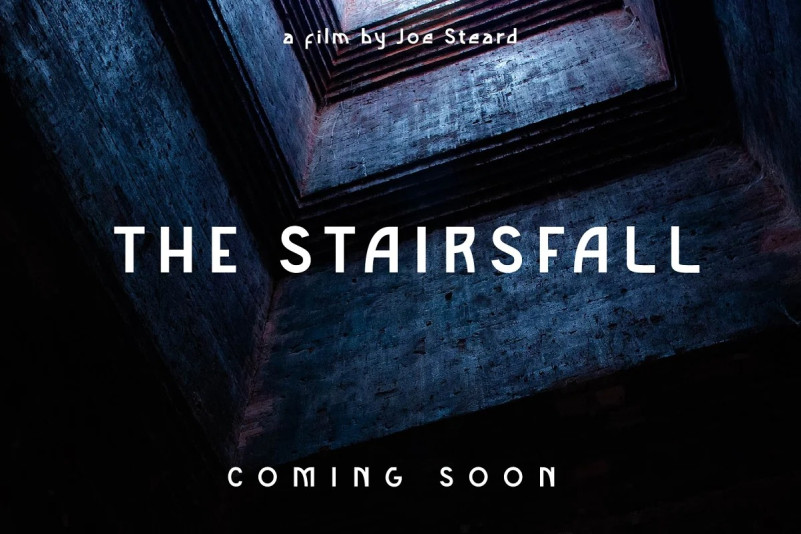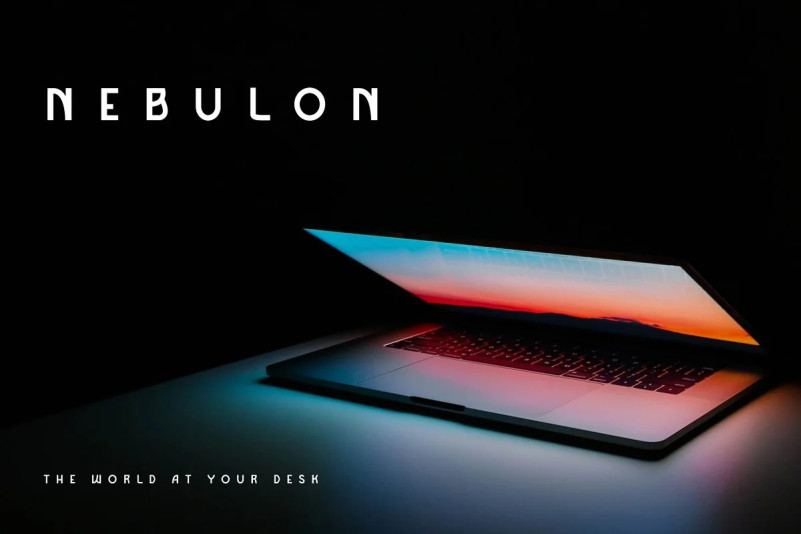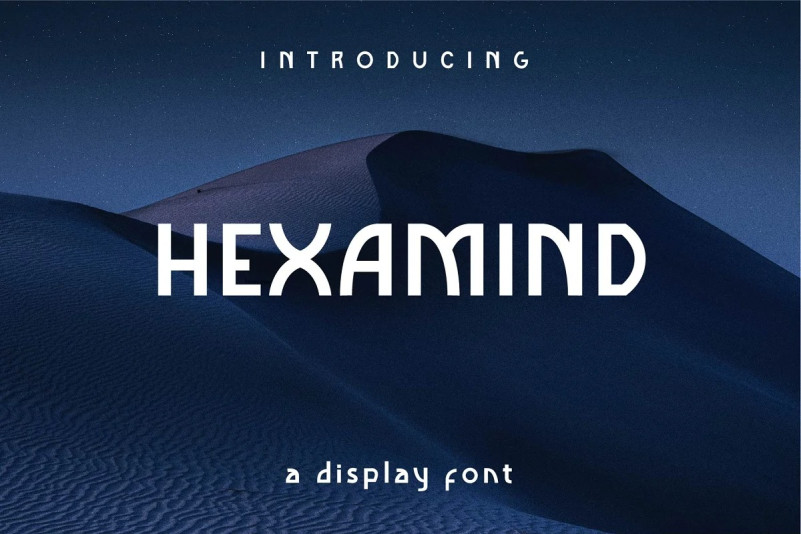
Hexamind Font
Introducing Hexamind Display Font , the bold and modern display font perfect for any professional project. With its unique and timeless style, Hexamind adds a touch of sophistication to any design. Whether you’re creating a logo, website, or print materials, Hexamind is the perfect font to make a statement and stand out from the crowd.